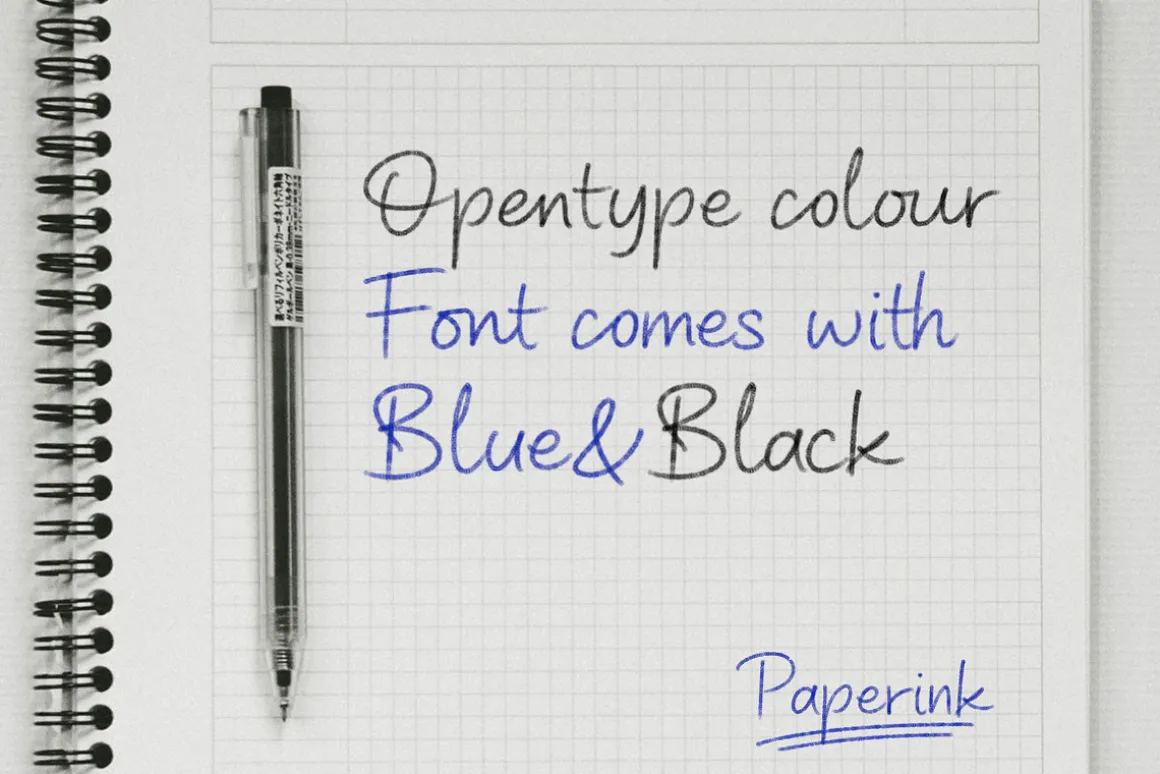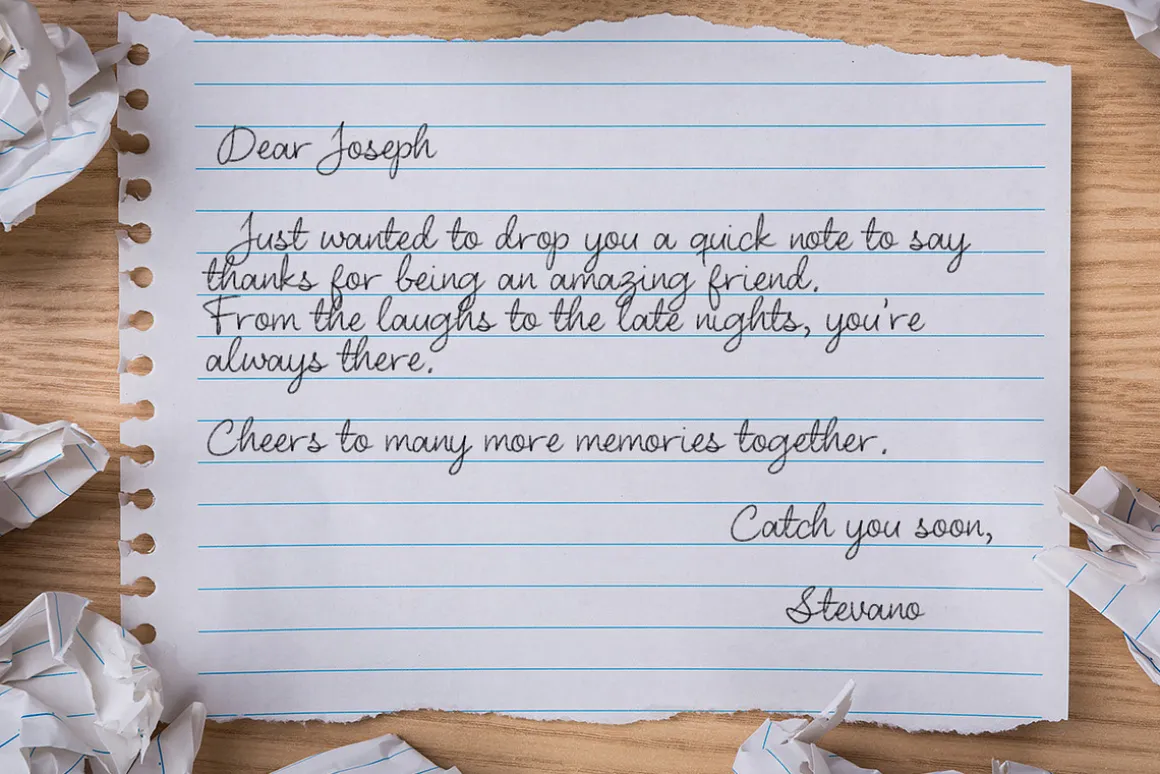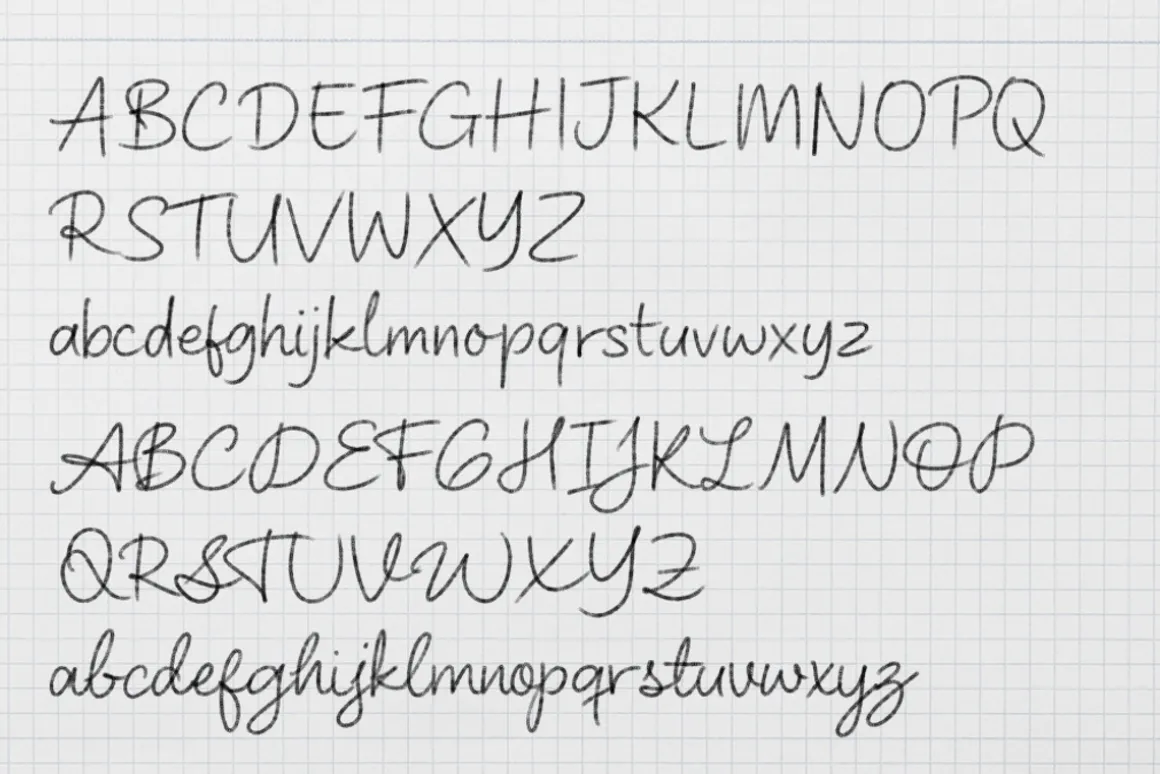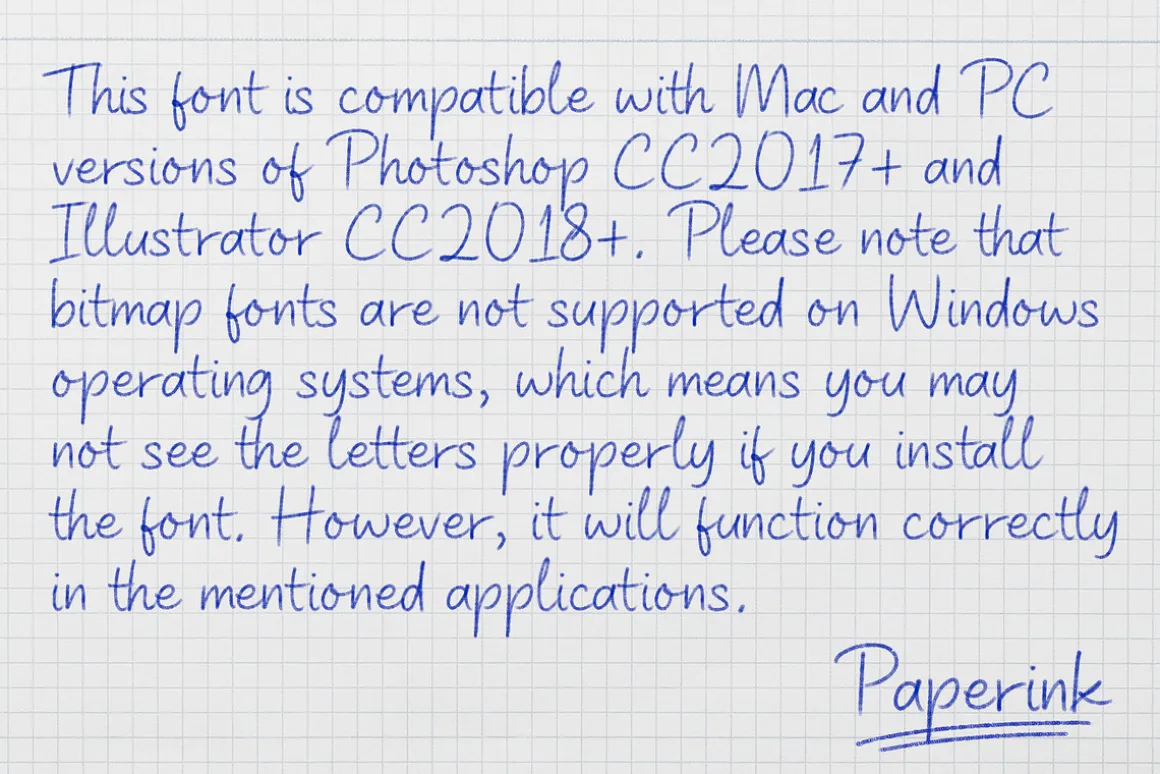
Paperink Handwritting Color SVG Font, a blend of sophistication and creativity that will breathe life into your projects. With two captivating color options—blue and black—this font adds a vibrant touch to your designs, allowing you to express your creativity in bold, colorful ways.
Crafted with precision and care, each letter of our Handwritten Color SVG Font exudes charm and elegance, while retaining the authentic feel of hand-drawn typography. Whether you’re designing invitations, posters, or social media graphics, this font is sure to make a statement and captivate your audience.
In addition to the color options, our font also includes a vector regular style, offering even more versatility for your designs. With its seamless integration and stunning visual impact, our Handwritten Color SVG Font is the perfect choice for designers looking to add a pop of color and personality to their creations.